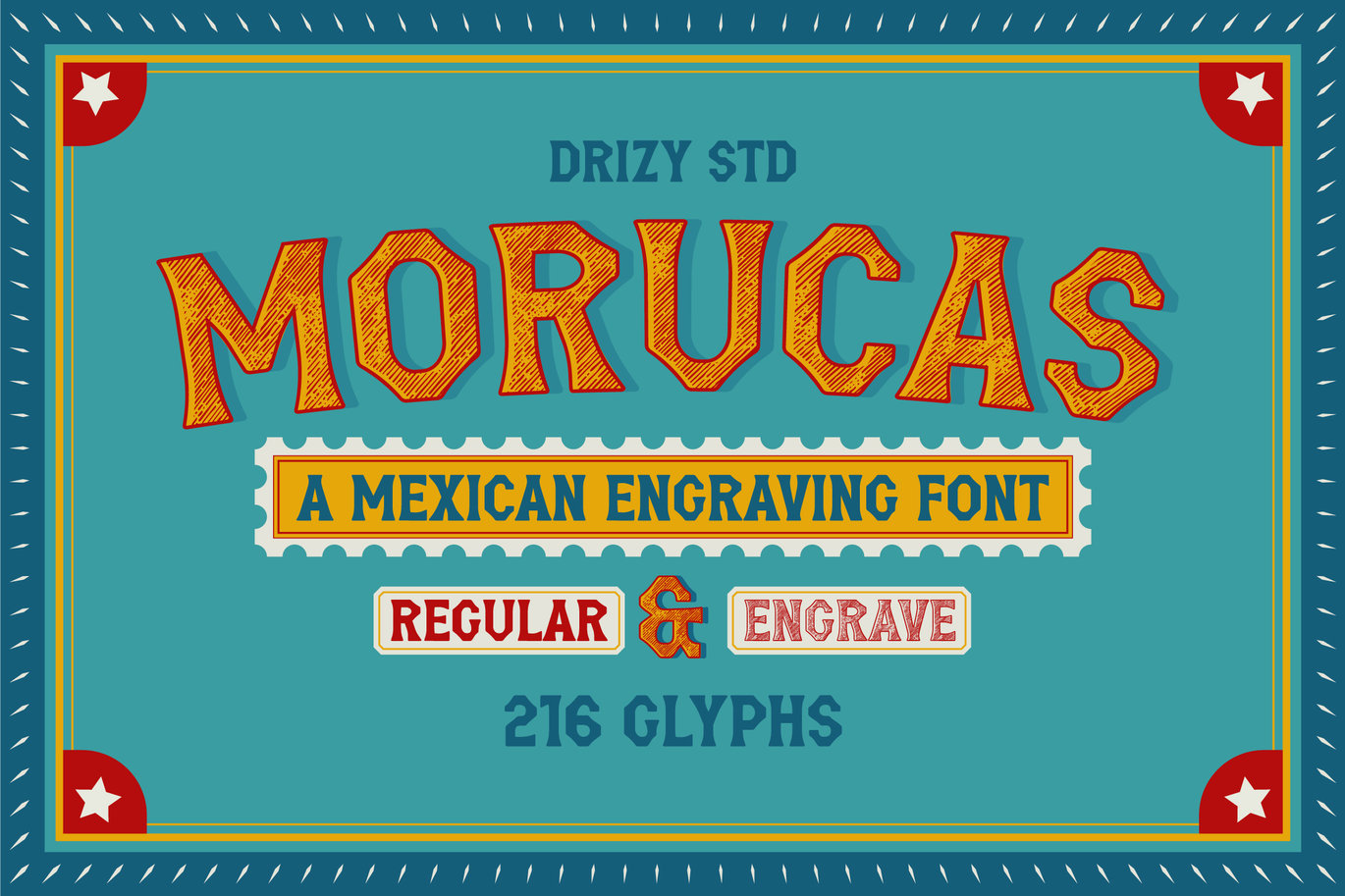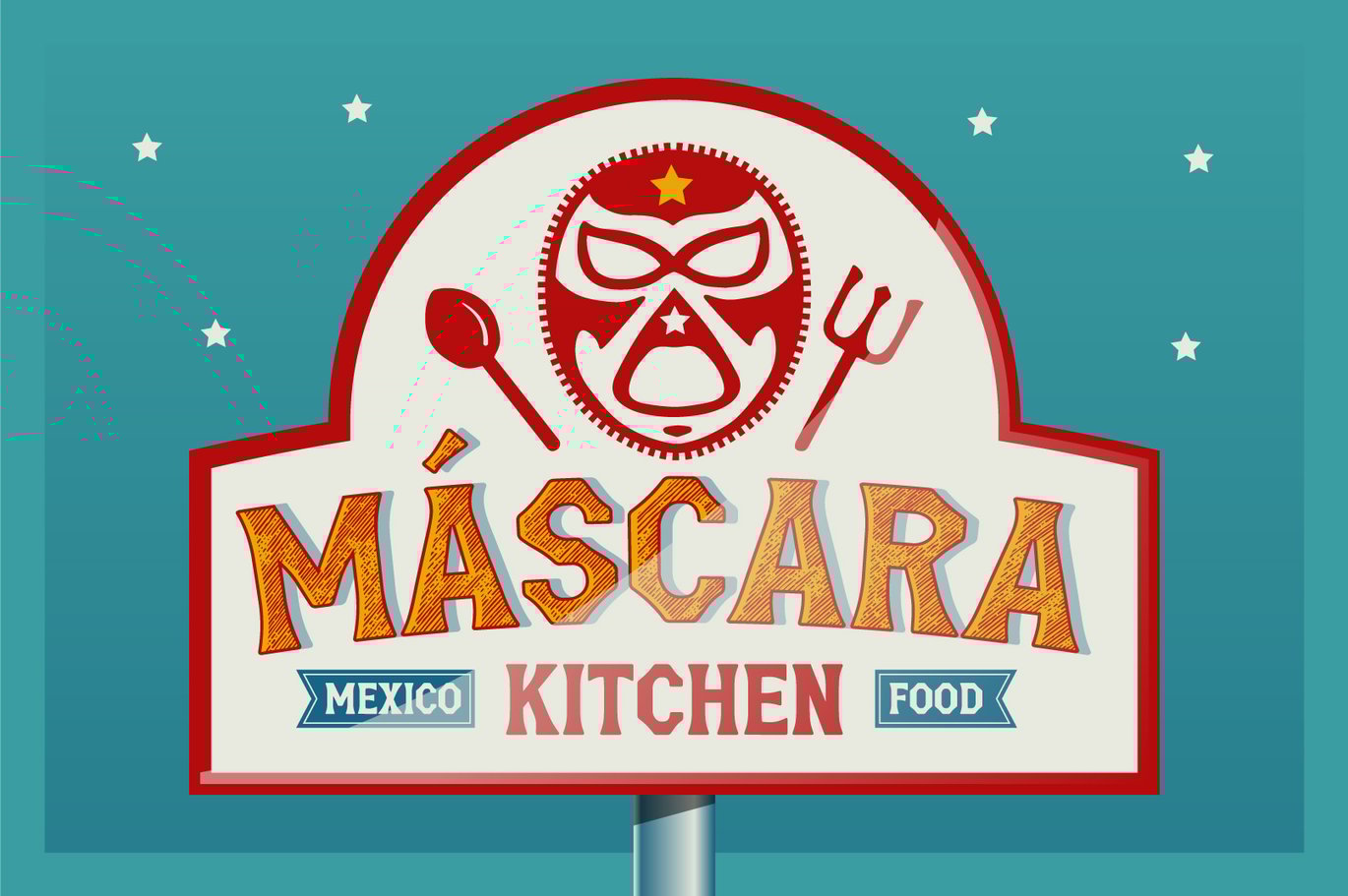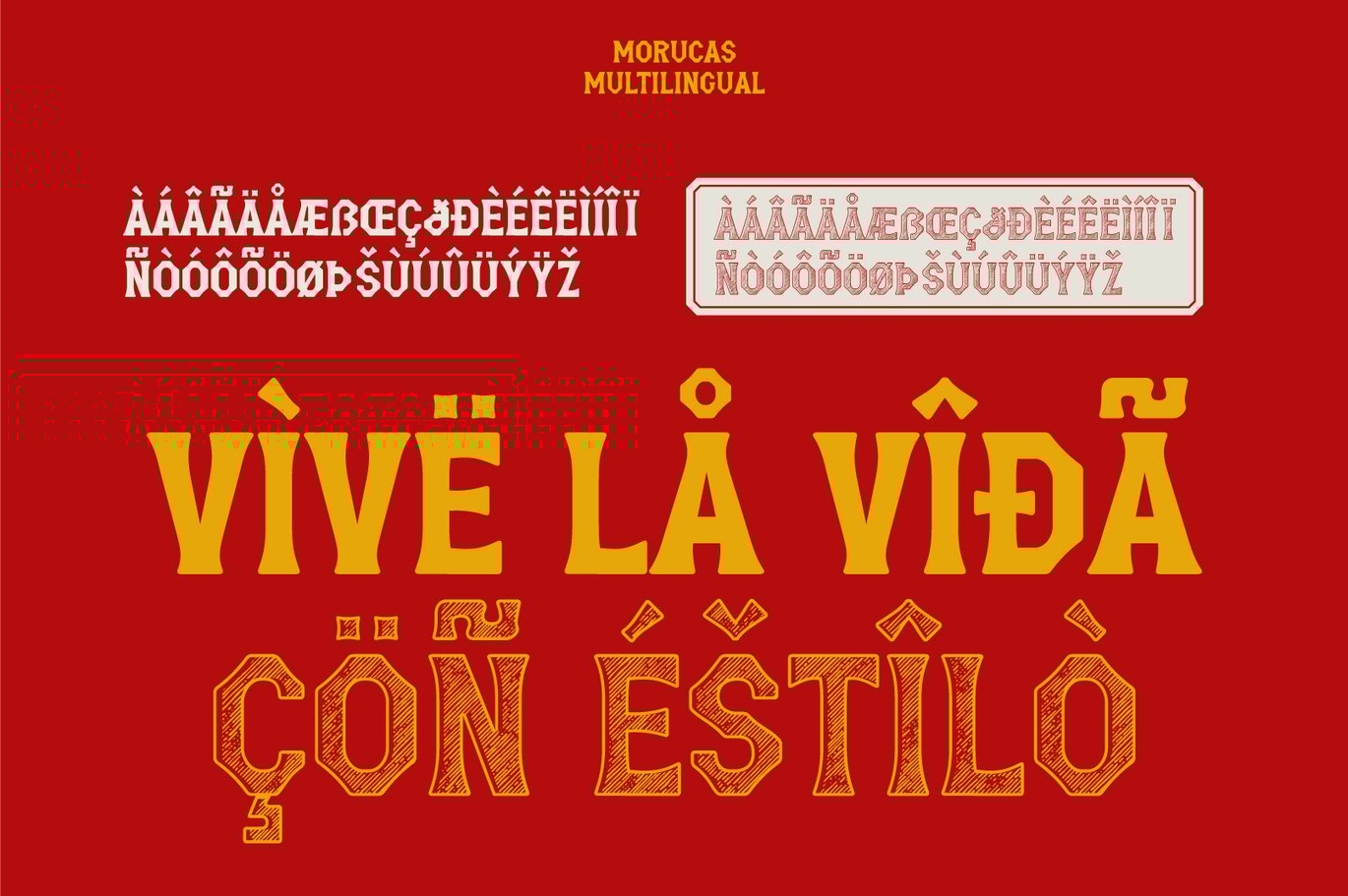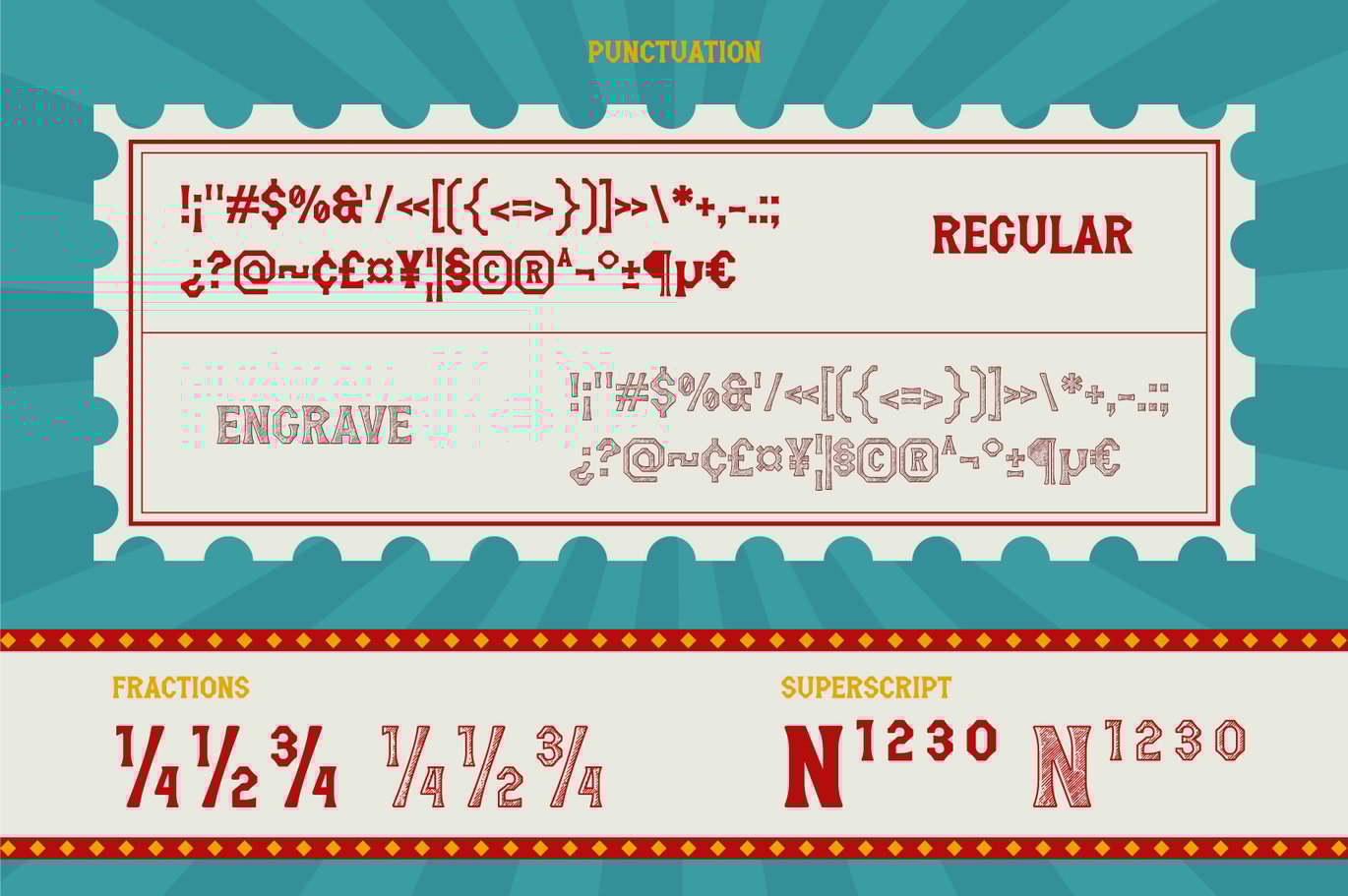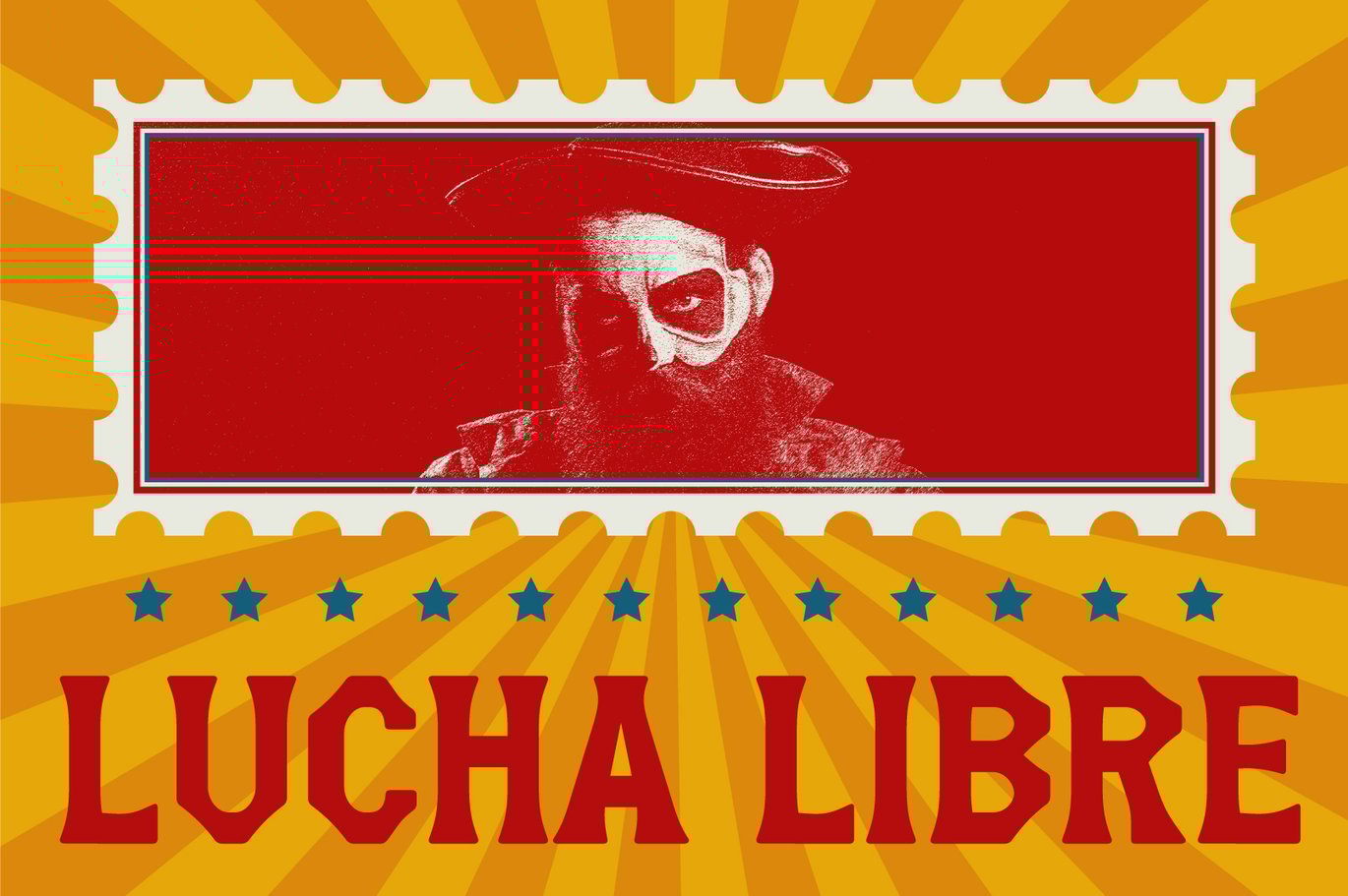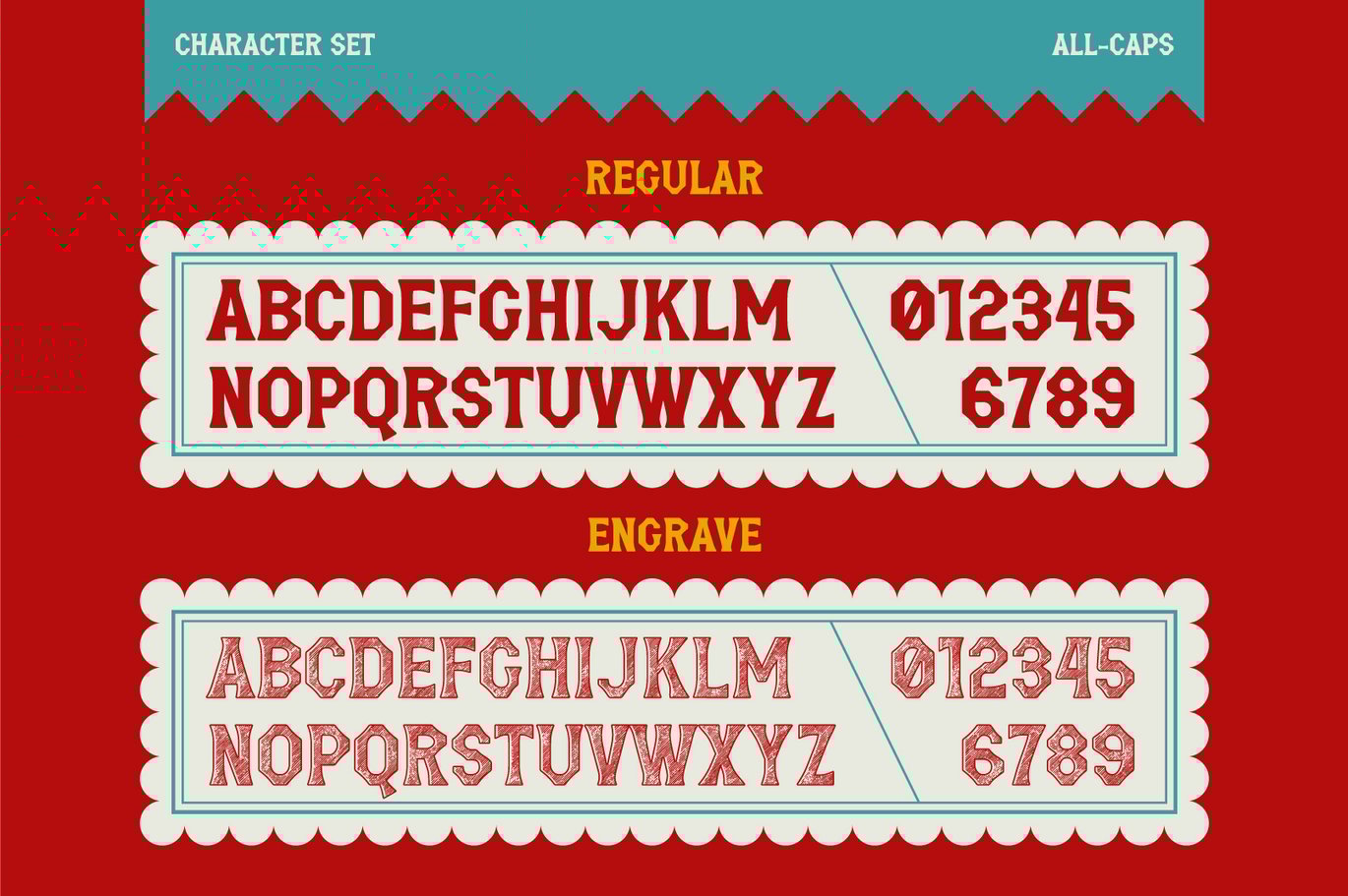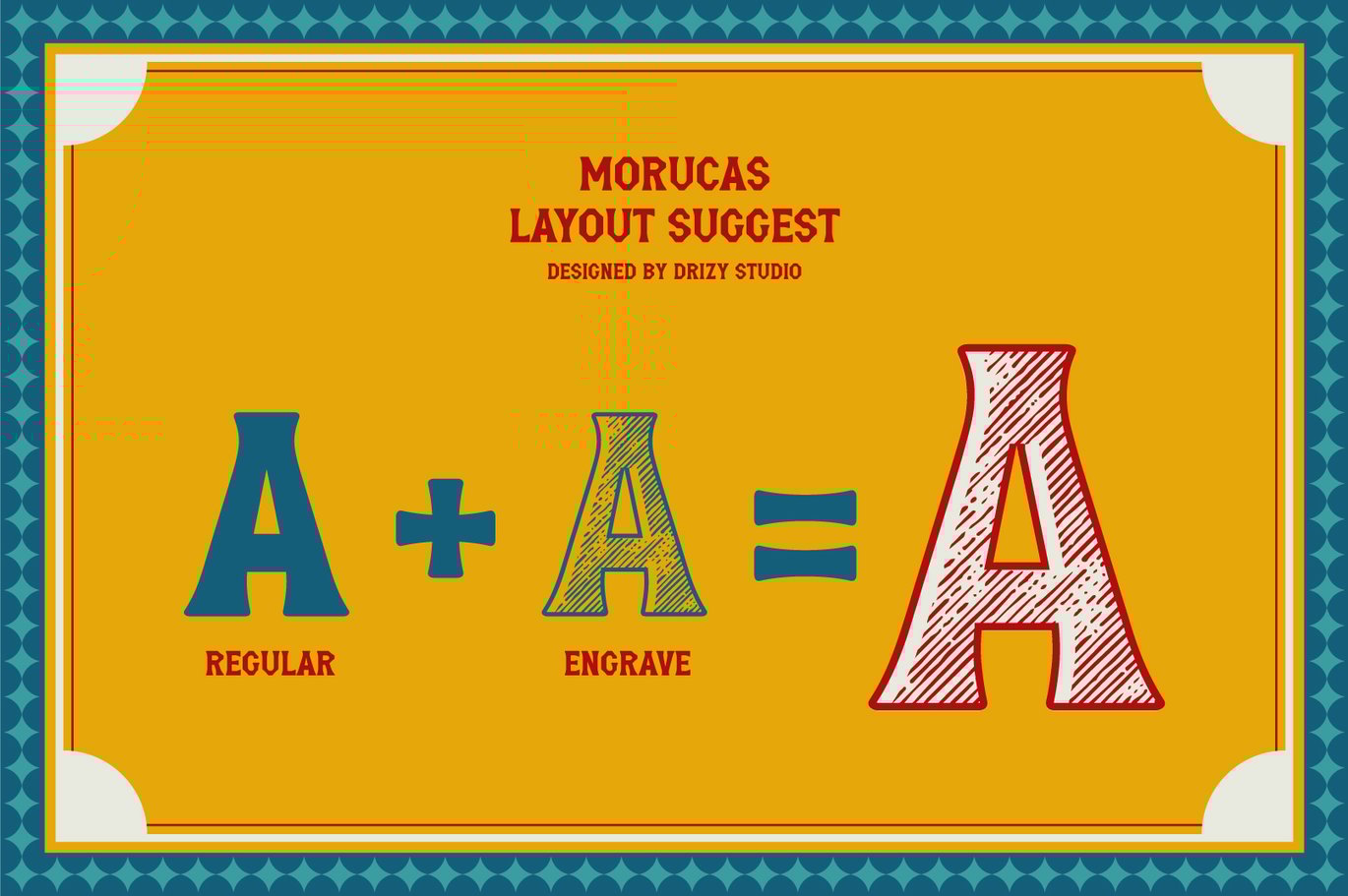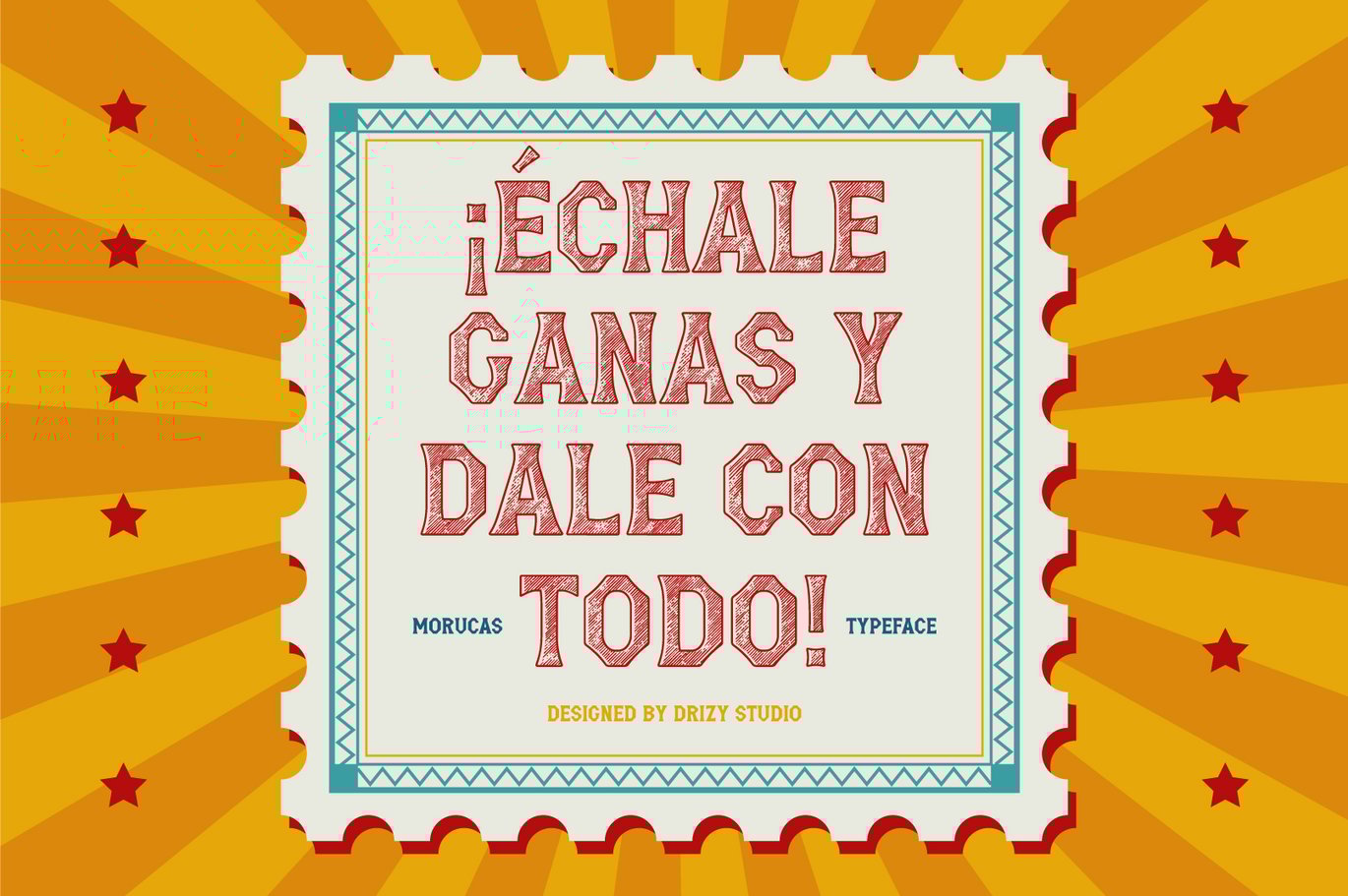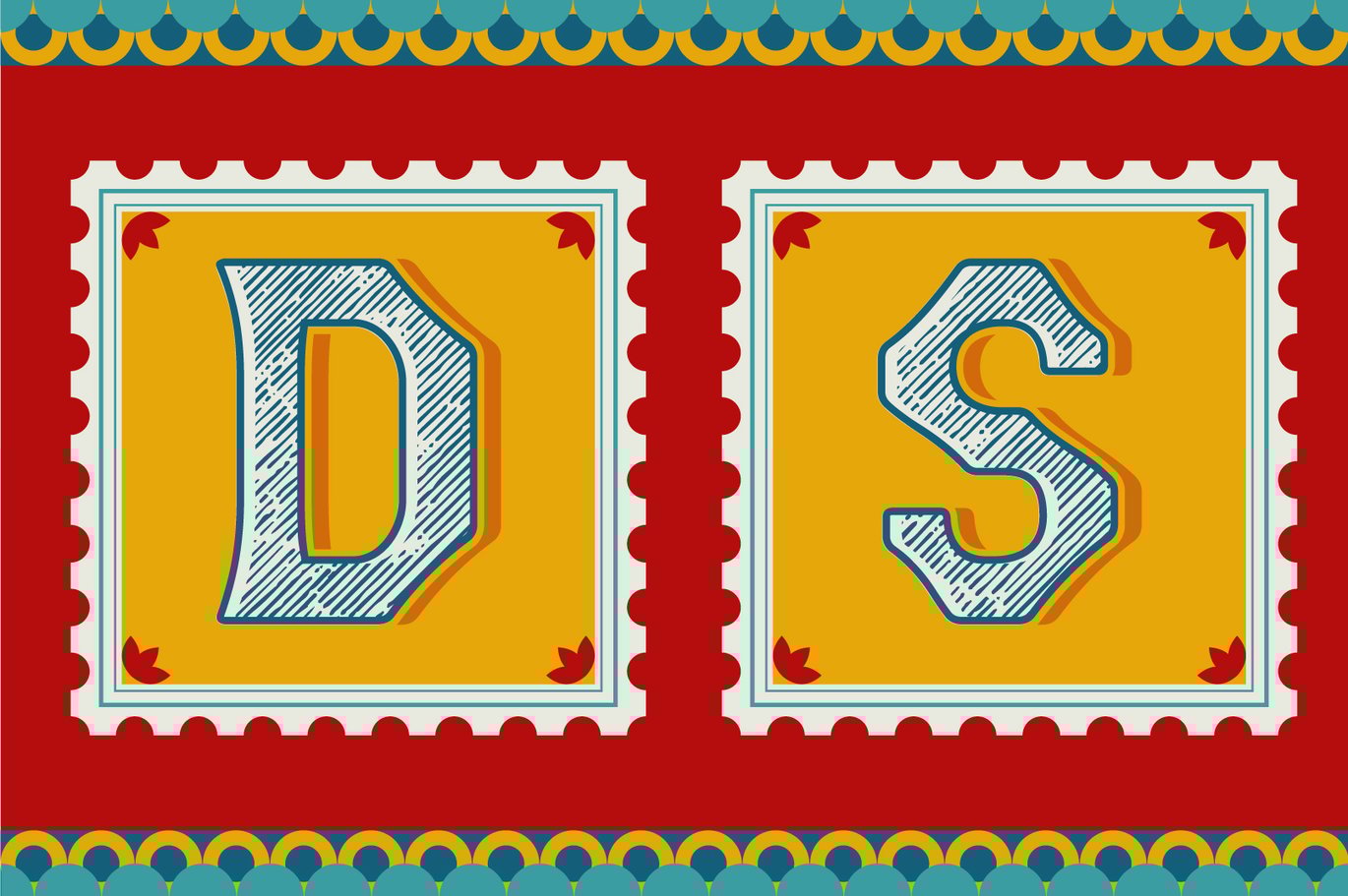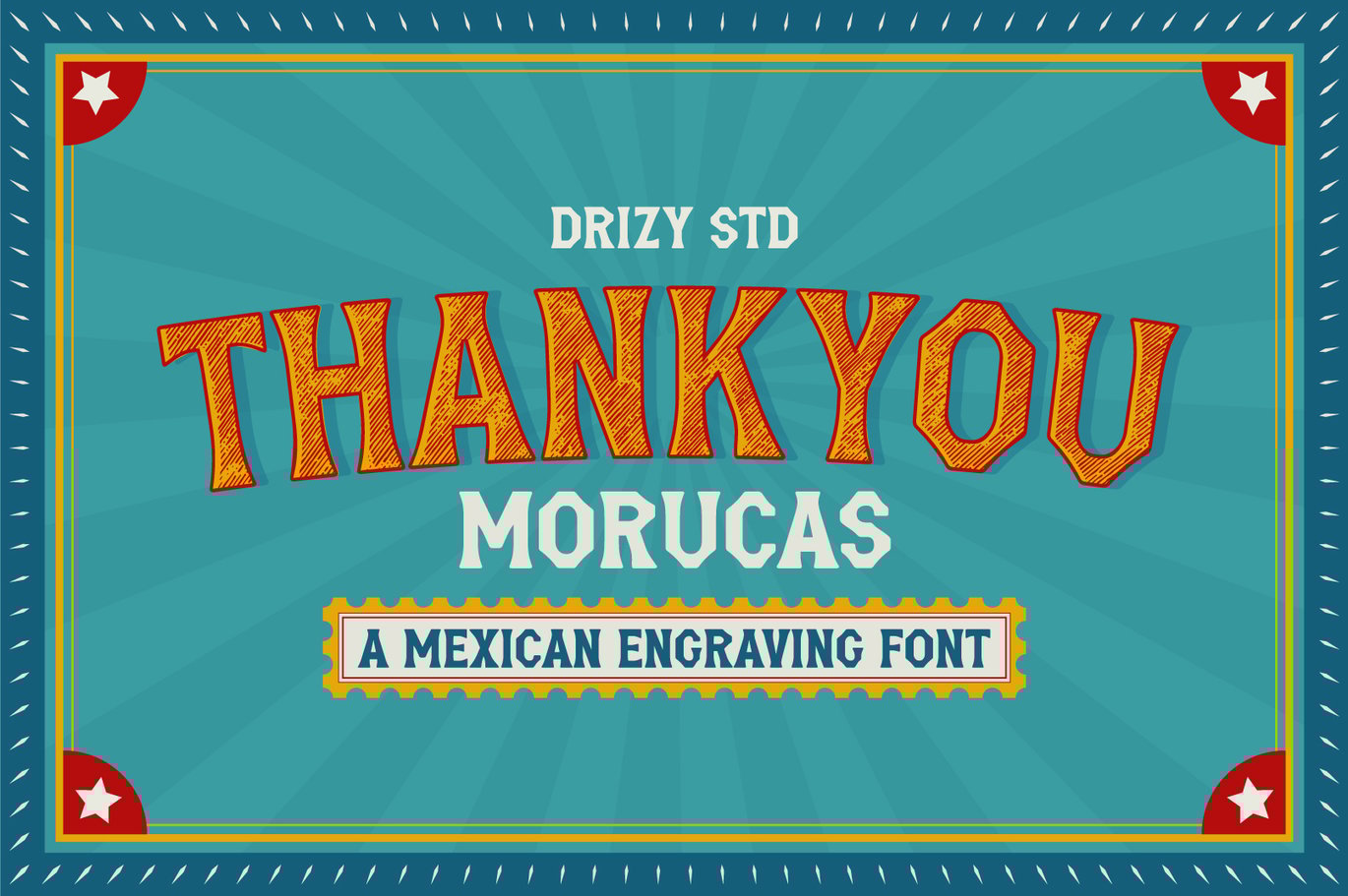
Morucas – Mexican Engraving Font
Morucas is a typographic homage to vintage-Mexican design, capturing the intricate and bold aesthetics of traditional Mexican engraving techniques, perfect for adding an authentic, nostalgic touch to any creative project.
Character Set (All Caps)
Variable : Regular & Engrave